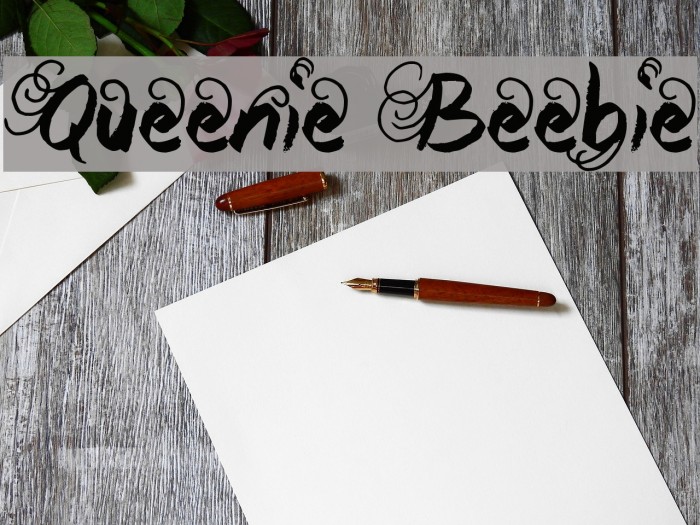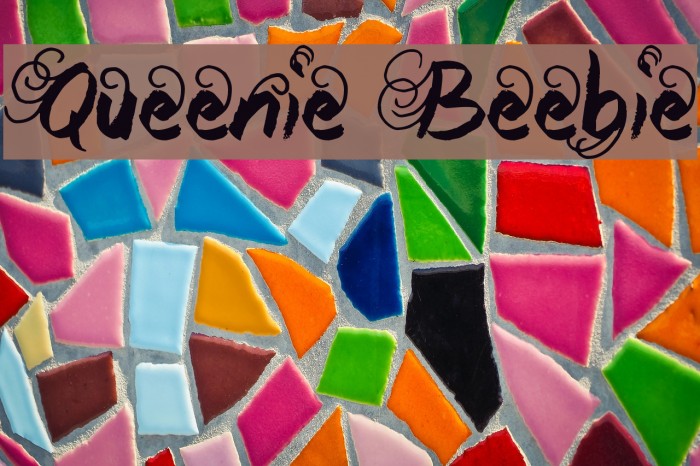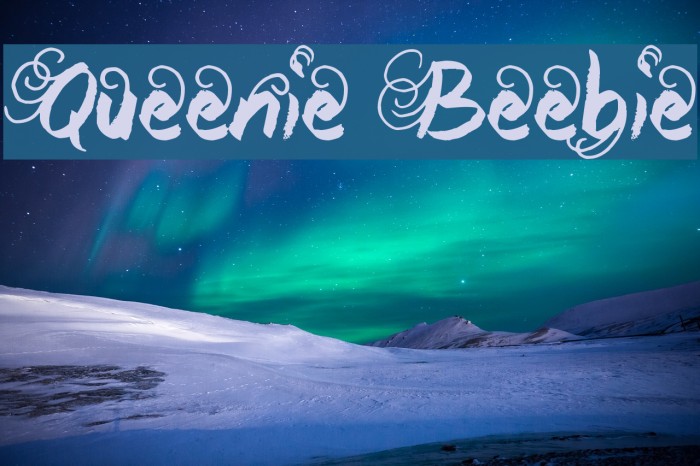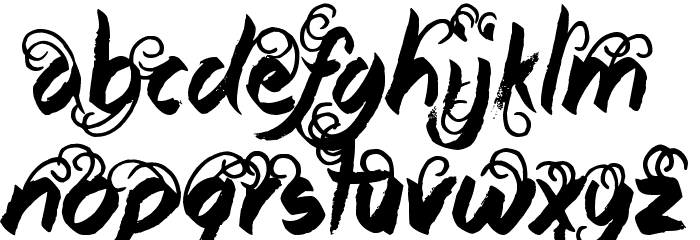
Queenie Beebie Font
Queenie Beebie Description
This font features an ornate and decorative style, characterized by its elaborate swirls and flourishes that extend from each letter. The uppercase letters are particularly intricate, with embellishments that give a sense of movement and elegance. The lowercase letters maintain a bold presence, with some letters having a slightly distressed or textured appearance, adding to the artistic flair. The overall design is reminiscent of calligraphy, with a modern twist that makes it suitable for creative and expressive projects. The font's unique style makes it stand out, perfect for capturing attention in various design contexts.
An ornate, decorative font with elaborate swirls and a calligraphic style from Decorative fonts.
- Proposed Projects: Ideal for invitations, artistic posters, branding for creative businesses, or any project requiring a distinctive and expressive typeface.
- Use Case: Headlines, Logos, Artistic projects